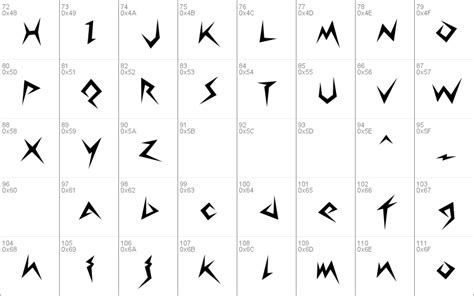
Lightning Volt Font . You can use this font for personal purpose. Discover the perfect lightning bolt font to add a distinctive touch to your project!
Lightning Volt Font - Character map please use the pulldown menu to view different character maps contained in this font. Click now to create a custom. Lightning volt font is high quality decorative font, designed by honey & death. Discover the perfect lightning bolt font to add a distinctive touch to your project! You can use this font for personal purpose.
Lightning Volt Font - A great choice for highlighting your design elements. It can be used for themed parties and halloween party invitation posters and tickets, as they set the mood. Click to find the best 61 free fonts in the lightning style. Lightning volt font is high quality decorative font, designed by honey & death. This lighting volt power shaped fonts are abstract.
Lightning Volt Font - By downloading and installing this font, you agree that the only font you install that you download is the free personal use font that is non. A great choice for highlighting your design elements. This lighting volt power shaped fonts are abstract and modern. Every font is free to download! Discover the perfect lightning bolt font to add a distinctive.
Lightning Volt Font - Lightning volt font is high quality decorative font, designed by honey & death. Click to find the best 61 free fonts in the lightning style. A great choice for highlighting your design elements. Every font is free to download! By downloading and installing this font, you agree that the only font you install that you download is the free personal.
Lightning Volt Font - You can use this font for personal purpose. Free download of lightning volt font. Our free lightning bolt font selection features a variety of styles and. Lightning volt font is high quality decorative font, designed by honey & death. Every font is free to download!
Lightning Volt Font - Every font is free to download! By downloading and installing this font, you agree that the only font you install that you download is the free personal use font that is non. Discover the perfect lightning bolt font to add a distinctive touch to your project! Click to find the best 61 free fonts in the lightning style. It can.
Lightning Volt Font - This lighting volt power shaped fonts are abstract and modern. Our free lightning bolt font selection features a variety of styles and. Lightning volt font is high quality decorative font, designed by honey & death. Every font is free to download! A great choice for highlighting your design elements.
Lightning Volt Font - Every font is free to download! A great choice for highlighting your design elements. Discover the perfect lightning bolt font to add a distinctive touch to your project! Lightning volt font free download. Lightning volt font is high quality decorative font, designed by honey & death.
Lightning Volt Font - Lightning volt font free download. You can use this font for personal purpose. This lighting volt power shaped fonts are abstract and modern. By downloading and installing this font, you agree that the only font you install that you download is the free personal use font that is non. Character map please use the pulldown menu to view different character.
Lightning Volt Font - Click to find the best 61 free fonts in the lightning style. Free download of lightning volt font. It can be used for themed parties and halloween party invitation posters and tickets, as they set the mood. By downloading and installing this font, you agree that the only font you install that you download is the free personal use font.
Lightning Volt Font - By downloading and installing this font, you agree that the only font you install that you download is the free personal use font that is non. Free download of lightning volt font. Click to find the best 61 free fonts in the lightning style. It can be used for themed parties and halloween party invitation posters and tickets, as they.
Lightning Volt Font - Every font is free to download! Free download of lightning volt font. Discover the perfect lightning bolt font to add a distinctive touch to your project! A great choice for highlighting your design elements. Our free lightning bolt font selection features a variety of styles and.